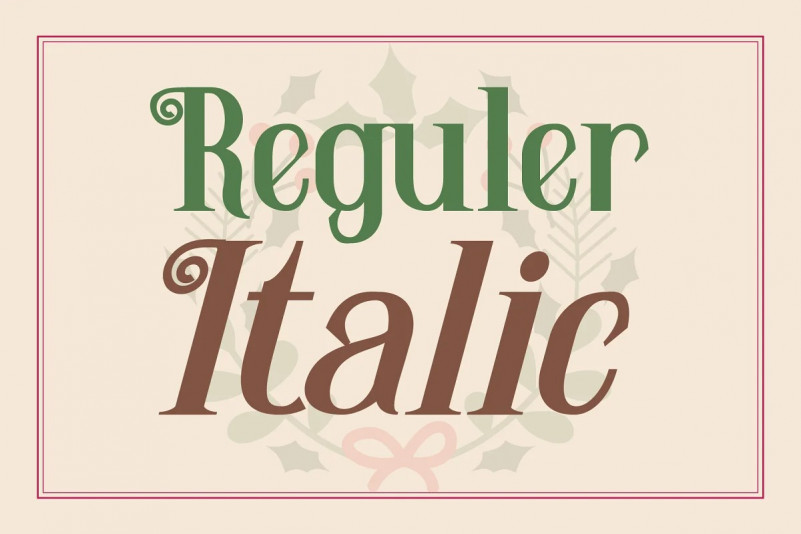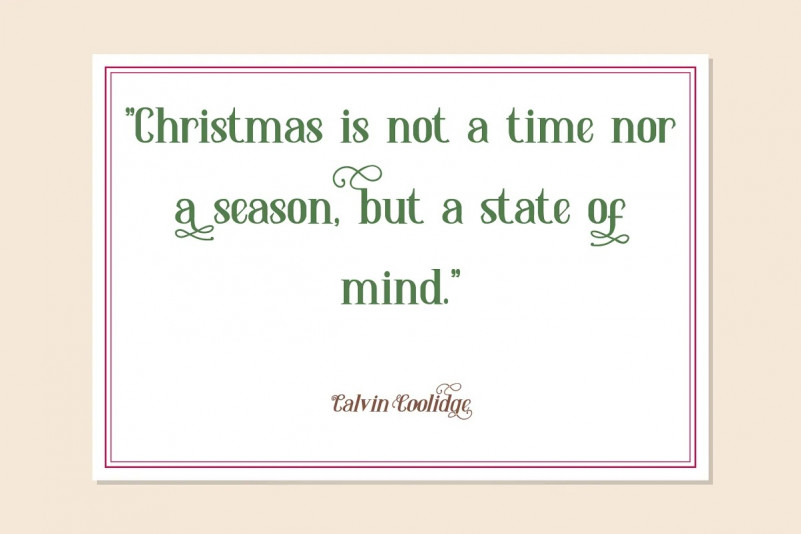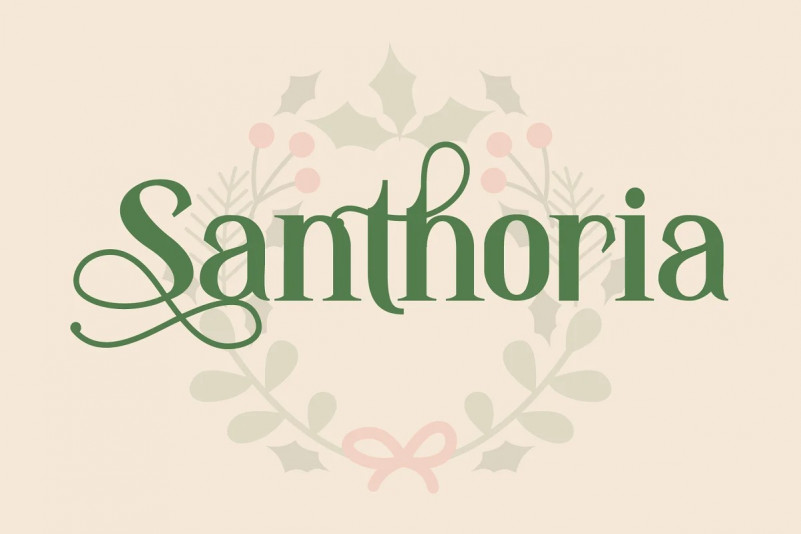
Santhoria Font
Create bold, gorgeous headlines and elegant designs with a cursive vintage flair. Santhoria is suitable for Christmas cards, wedding invitations, branding, stationery, blog design, custom art, custom stamps, custom embossers, or any design purpose. You can use it for your personal use, or for a commercial project. Santhoria is a versatile typeface that’s full of character and one you’ll come back to time and again. Create something beautiful today with Santhoria.